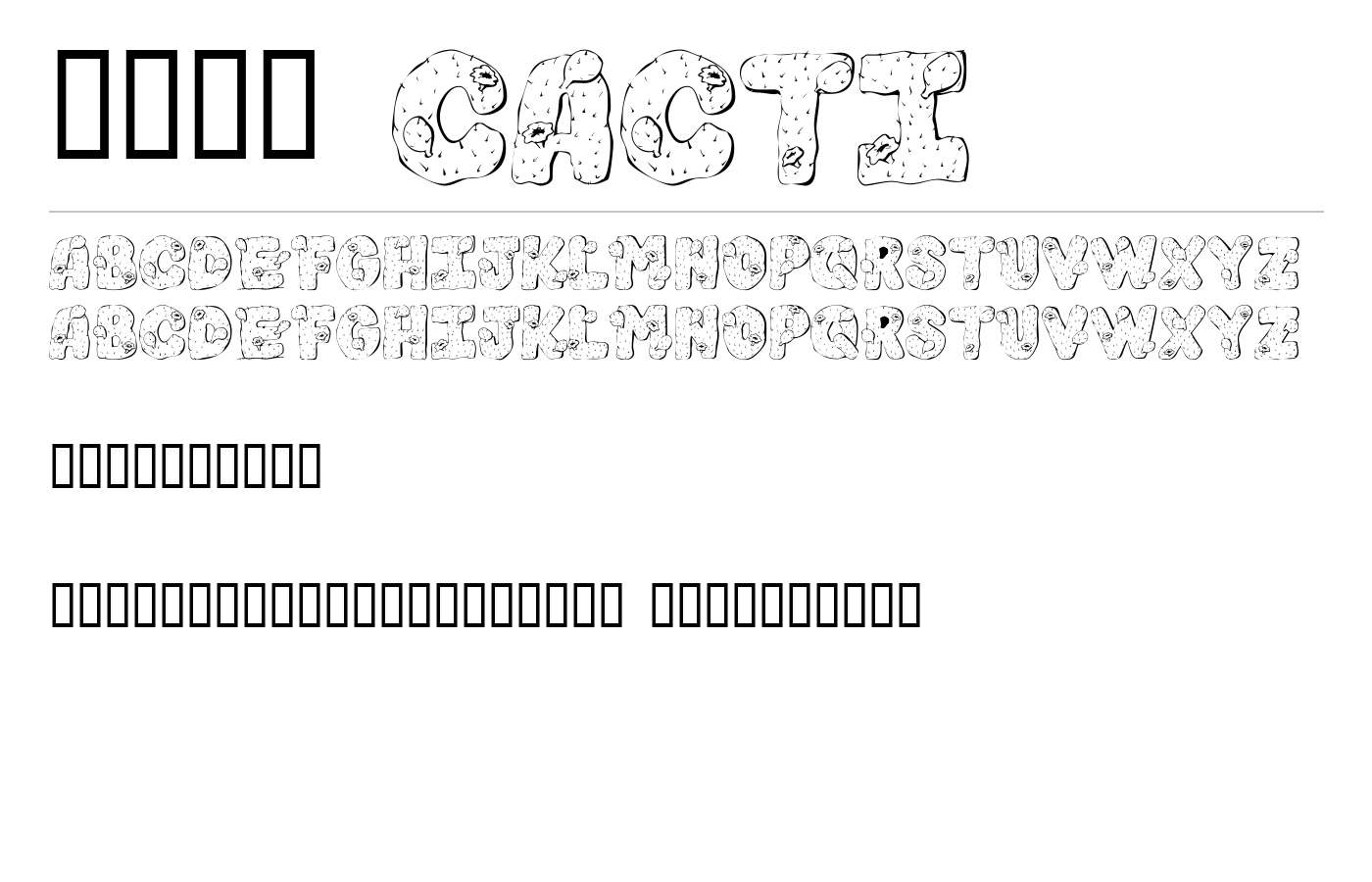
101! Cacti Font is a playful and bold display typeface that mimics the organic, spiky texture of cactus plants. Its chunky, irregularly rounded letterforms and fun details give it a lively, hand-crafted feel, making it perfect for creative projects that want to convey a quirky, natural, or Southwestern vibe. This font works great for eye-catching headlines, logos, and posters where a unique and approachable personality is desired.
101! Cacti Font
About 101! Cacti Font